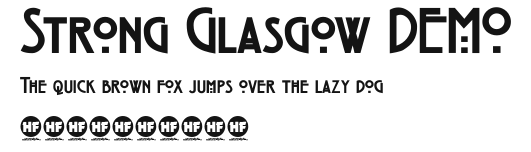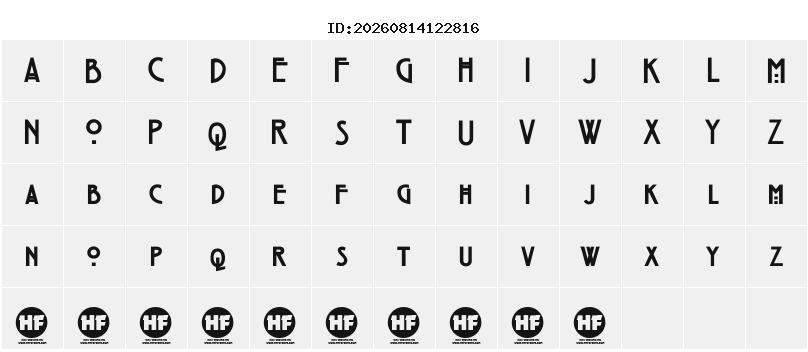
• Font Name: Strong Glasgow DEMO
• Designer: Guilhem GRECO/ Hypefontsô
About Strong Glasgow DEMO.ttf
Strong Glasgow DEMO.ttf is a modern, elegant sans-serif font designed for ultimate readability and visual harmony. Perfect for branding, headlines, web design, and print materials.